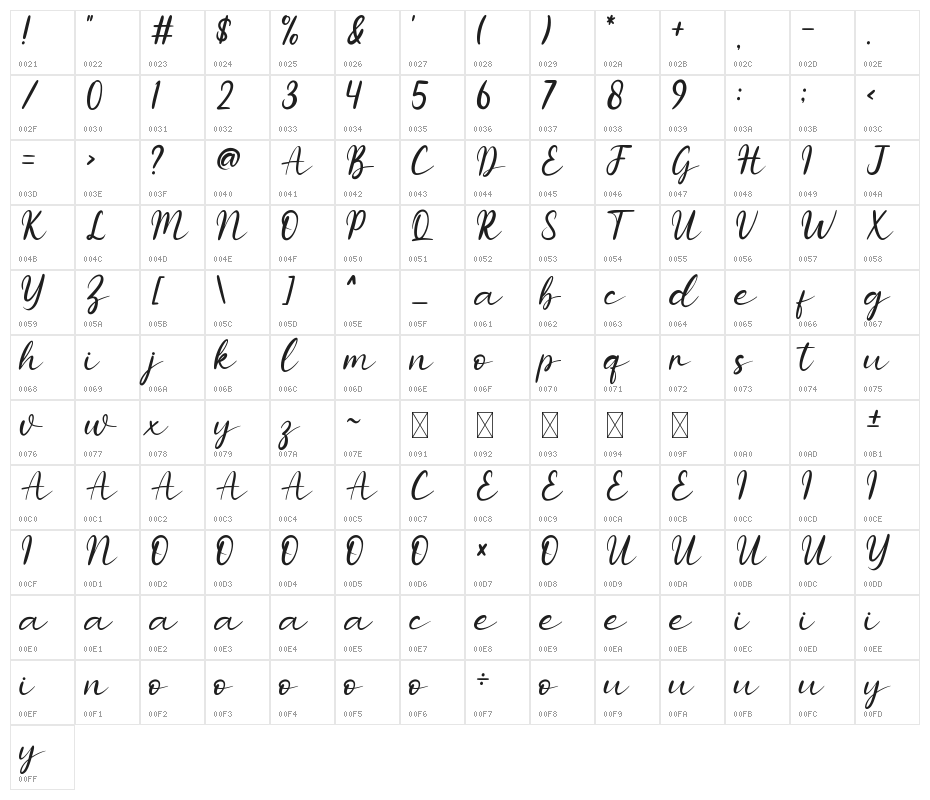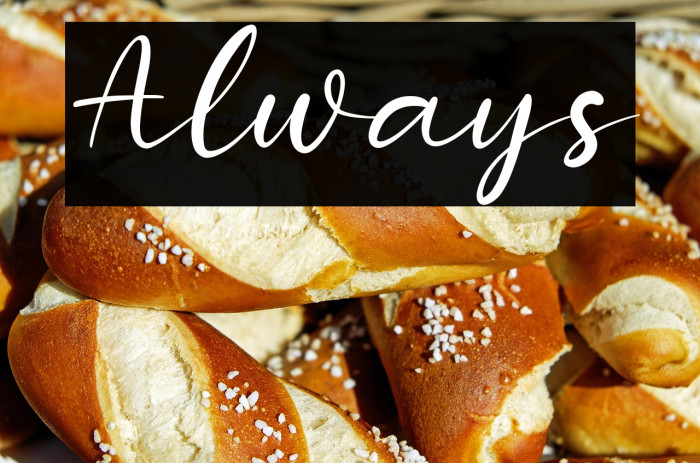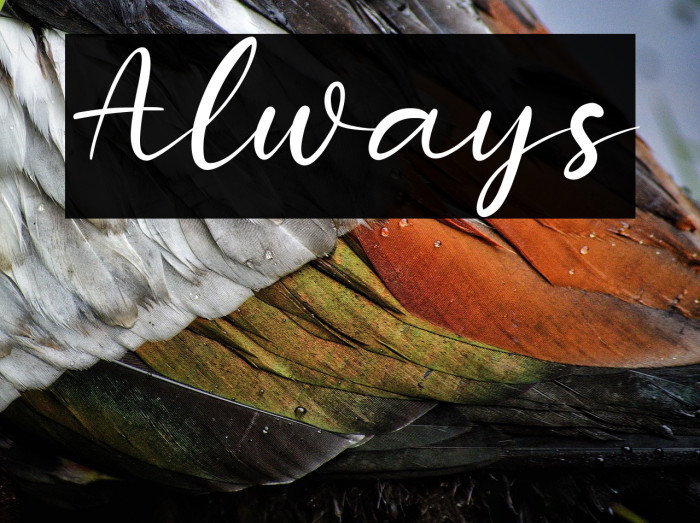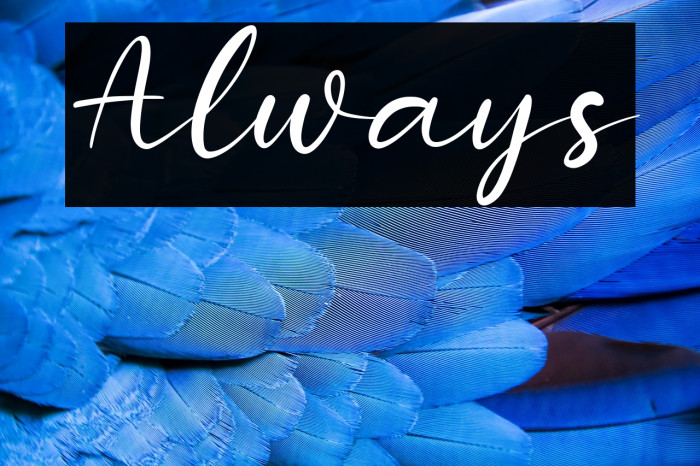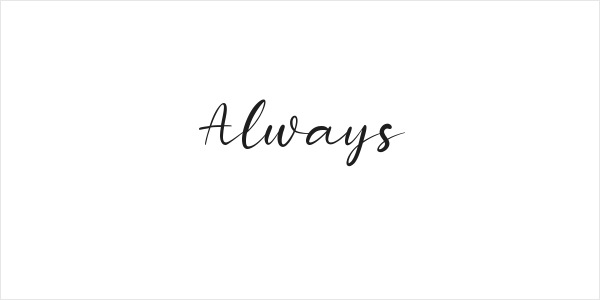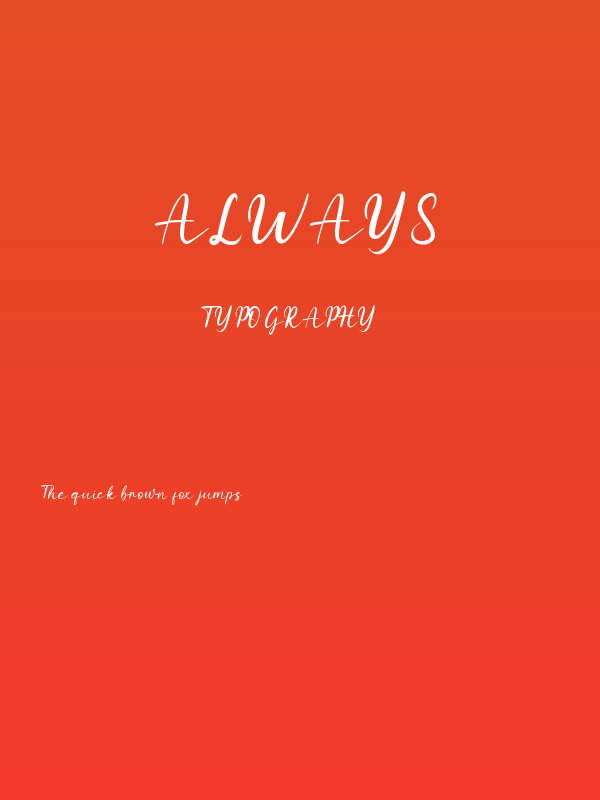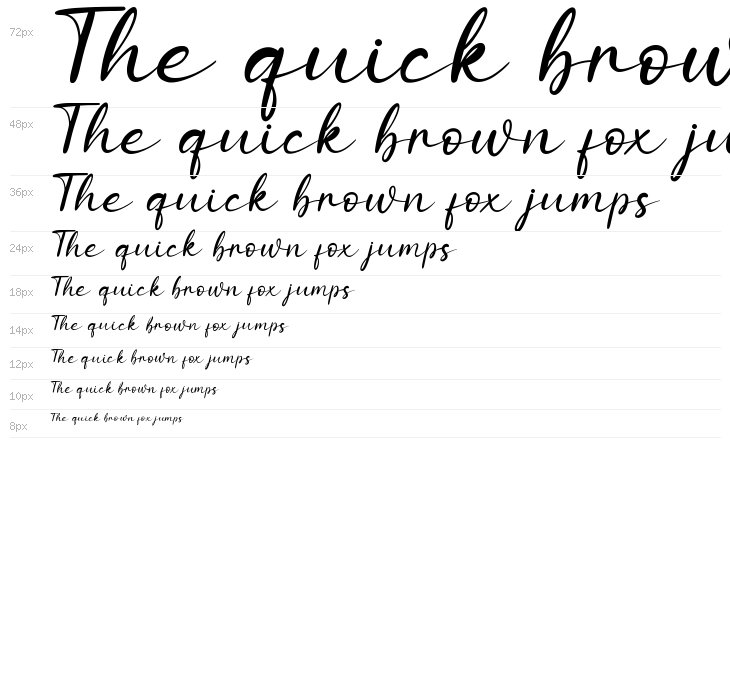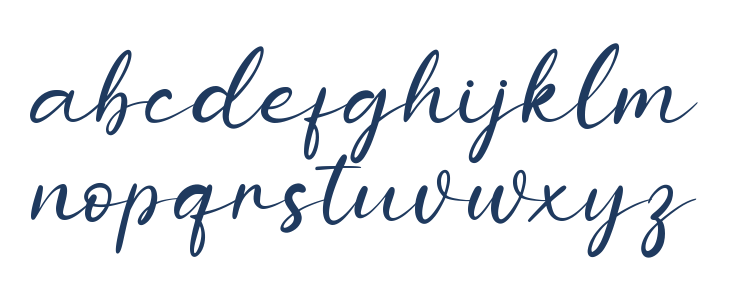
Always Font
| Stile generale | Elegant, Handwritten |
| Caso d'uso | Logos, Invitations, Greeting Cards |
| Progetti proposti | Ideal for wedding invitations, greeting cards, branding, and logo design where a personal and elegant touch is desired. |